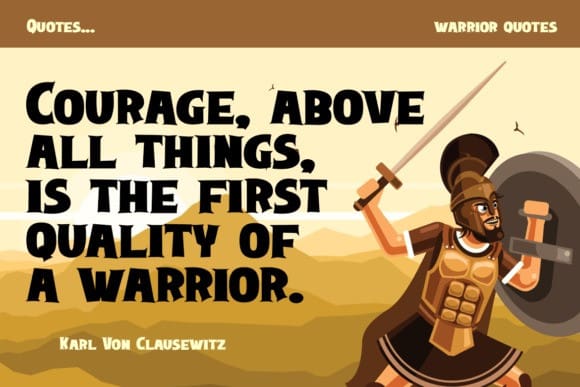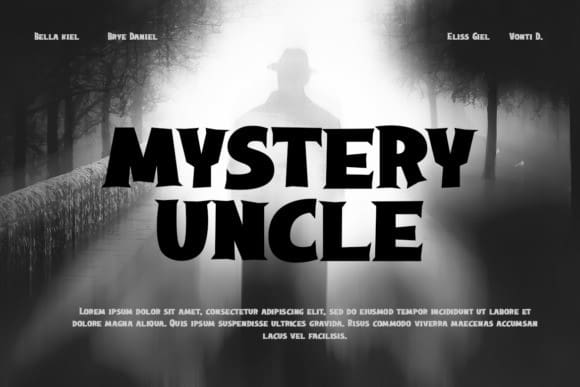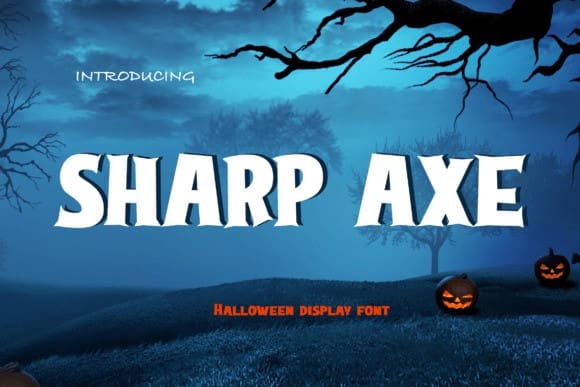
Sharp Axe Font
Sharp Axe Font, is a whimsical serif font with a slightly creepy feel. Its quirky and uneven characters are great for making any text stand out!